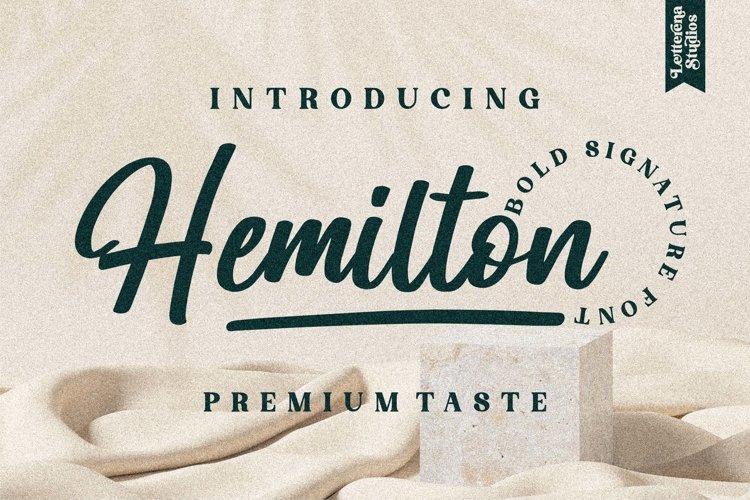
Hemilton - Bold Signature Font, from Letterena, is a romantic calligraphy font, suitable for any projects such as: logos, branding projects, homeware designs, product packaging, mugs, quotes, posters, shopping bags, t-shirts, book covers, name card, invitation cards, greeting cards, label, photography, watermark, special events, and all your other luxury projects that need a brush Signature taste.